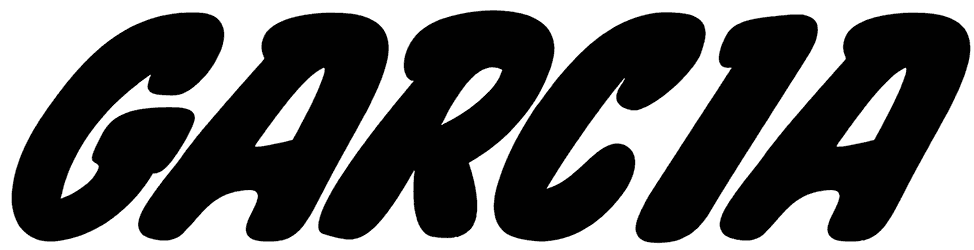
Garcia Font
Garcia font is an ideal choice for modern companies that want to present a casual, friendly, and approachable image. Even though this font does not support small letters, it works in many different spaces and is suitable for website design, logos, and any printed text.
Also, if you are looking for a fat rounded font that will draw eyes well in large sizes, you are in the right place.